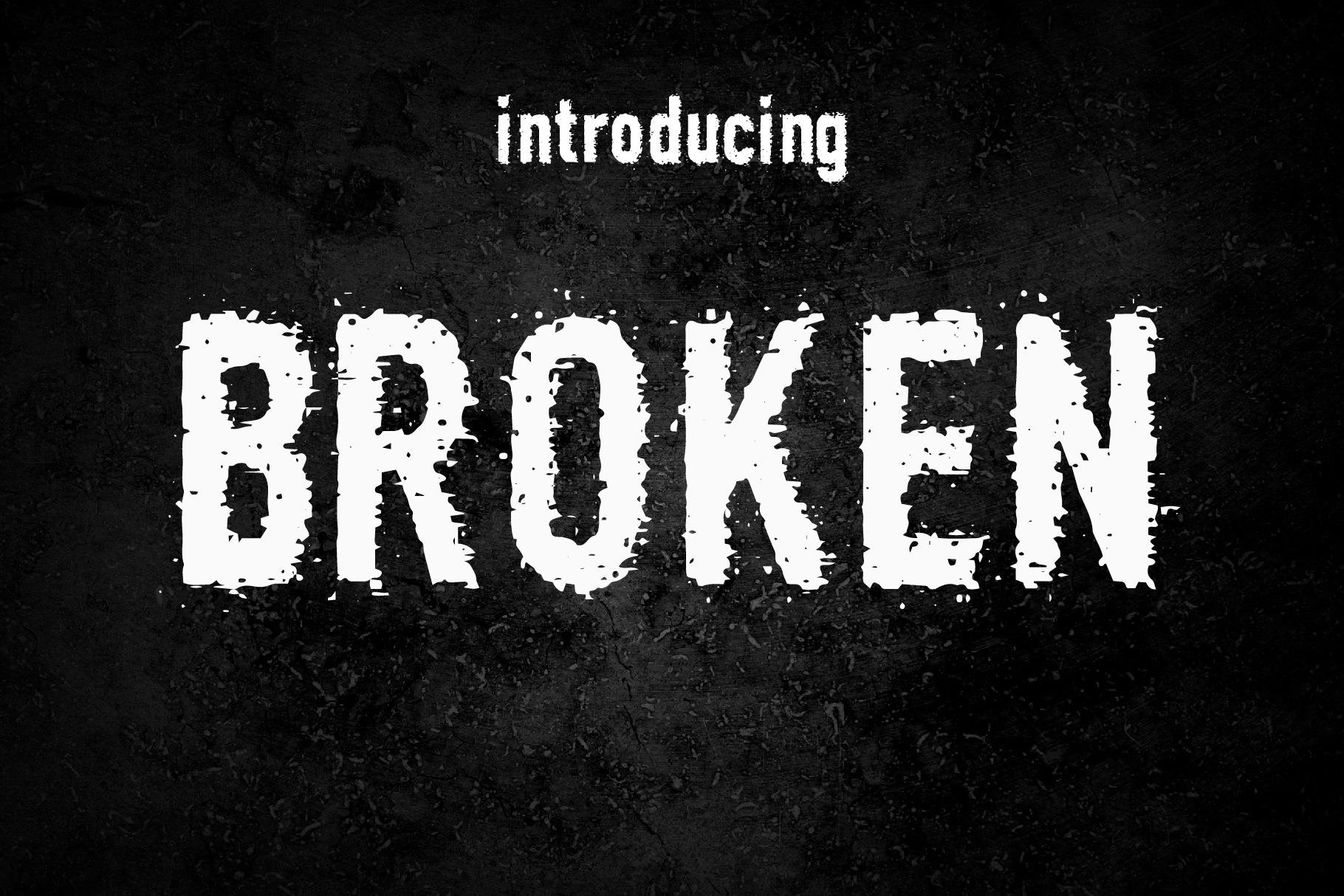
Broken Fonts
Broken is a different font that has been carefully designed for a wide range of uses. Whether it's Halloween-themed designs, special day cards, Instagram posts, or Facebook posts It is perfect for logos, T-shirts, papers, print designs, website headers, photo frames, flyers, music covers, posters, image sliders, and much more.